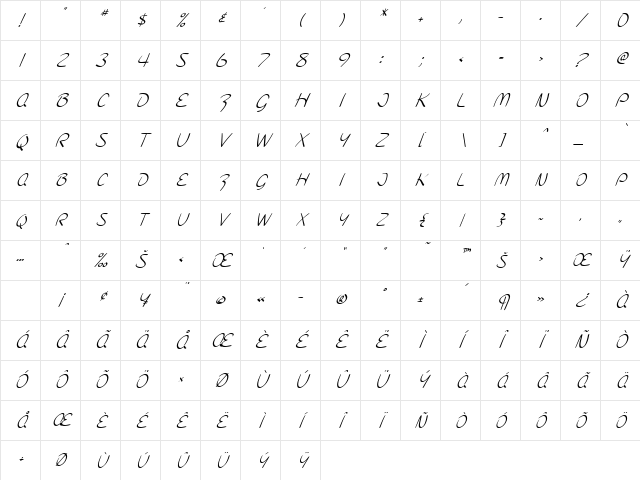
SF Burlington Script SC Italic Free Font
SF Burlington Script SC Italic
SF Burlington Script SC Family
Complete SF Burlington Script SC Italic glyph index. Displaying only characters natively supported by SF Burlington Script SC Italic font.
Design Context for SF Burlington Script SC
SF Burlington Script SC flows with the natural rhythm of handwritten lettering, making it ideal for designs that call for warmth and personal expression.
Font Pairing: Combine SF Burlington Script SC with a simple geometric sans for maximum contrast - the tension between flowing curves and clean structure is a classic typographic pairing.
Pro Tip: Use SF Burlington Script SC for short runs of text - names, titles, or taglines. Extended body copy in script faces tires the eye quickly.